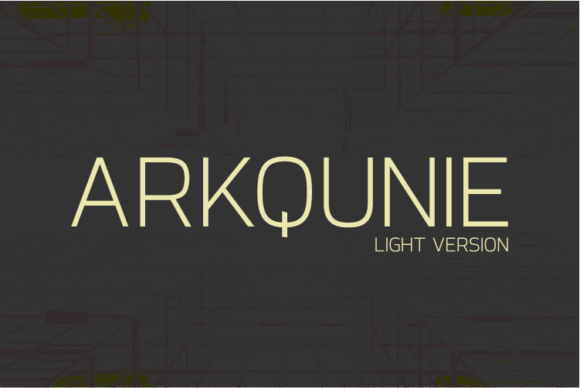
The Ultimate Design Hack: Unlocking the Power of Arkqunie Light Font
I’ll never forget the time I was working on a project for a client who needed a unique and eye-catching font for their branding. I spent hours scouring the internet for the perfect typeface, but nothing seemed quite right. That was until I stumbled upon Arkqunie Light Font. This casual and geometric sans serif typeface has been a game-changer for my design work, and I’m excited to share its awesomeness with you! 😊
An Honest Review of Arkqunie Light Font
• ✅ Maximum flexibility: Arkqunie is versatile and can be used for a wide range of design projects, from headlines to logos.
• ✅ Special features: Each letter has unique characteristics that make Arkqunie perfect for adding a touch of personality to your designs.
• ✅ Geometric sans serif: The clean lines and minimalist aesthetic of Arkqunie make it perfect for modern designs.
While Arkqunie is an amazing font, there are a few things to keep in mind:
• 🤔 Limited contrast: Arkqunie has a relatively low contrast between letters, which can make it harder to read in certain situations.
• ⚠️ Not ideal for body text: Due to its geometric nature, Arkqunie is better suited for headlines and titles rather than large blocks of text.
The Backstory of Arkqunie Light Font
Arkqunie was designed with the intention of creating a versatile and modern sans serif font. The designer wanted to craft a typeface that would be perfect for a wide range of design projects, from headlines to logos. With its unique characteristics and geometric aesthetic, Arkqunie has become a popular choice among designers.
Q: What is the best way to use Arkqunie in my designs?
A: Arkqunie is perfect for headlines, postcards, business cards, logos, letterheads, magazines, posters, and more! Experiment with different OpenType features and glyphs to add visual interest to your design.
Q: Is Arkqunie suitable for body text?
A: While Arkqunie is a beautiful font, it’s better suited for headlines and titles rather than large blocks of text. Its geometric nature can make it harder to read in certain situations.